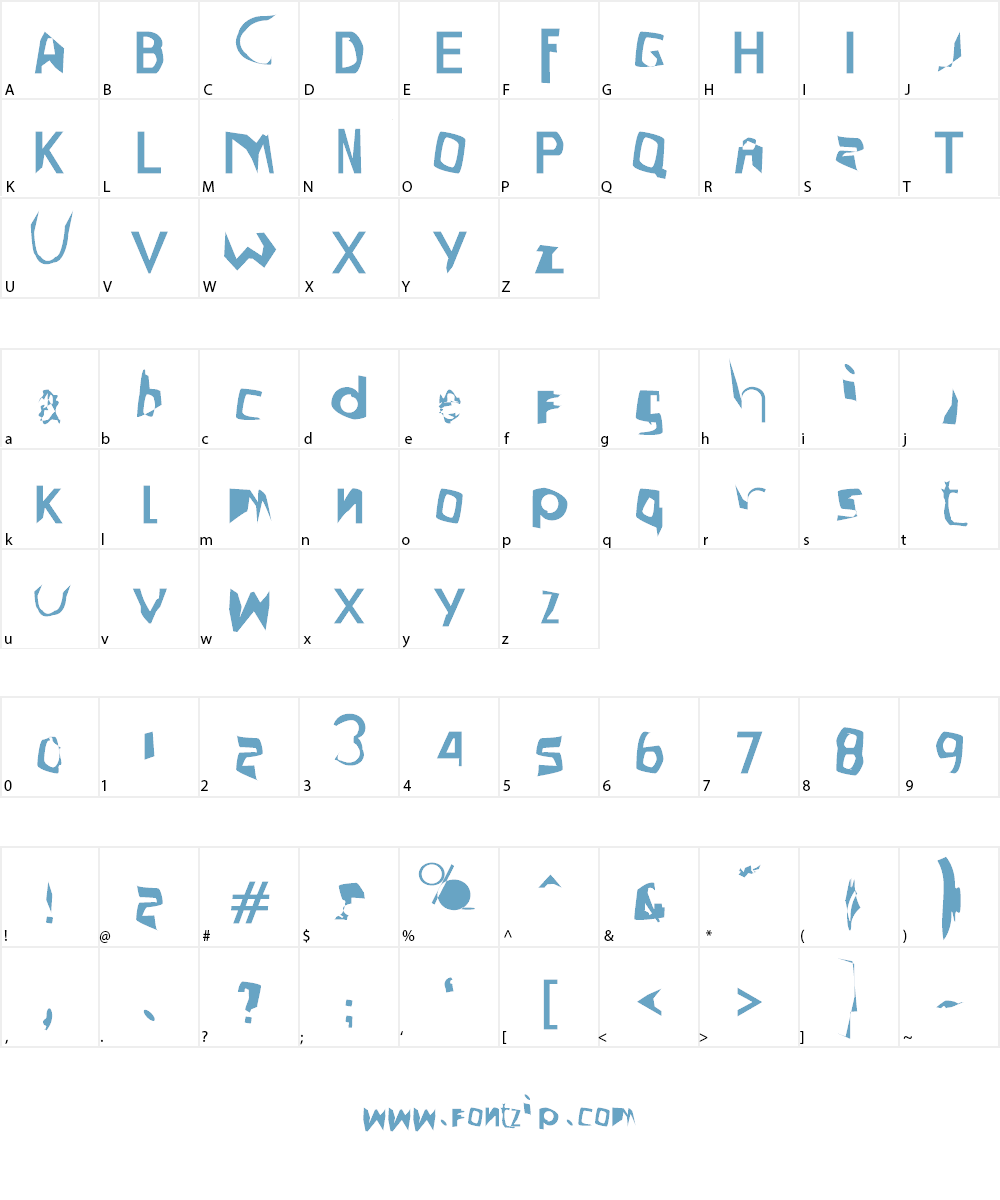
Nightblindside is a distorted font that is based on some distorted fonts and the Gnuolane.
Nyctalopia is the effect of night vision that makes you nightblind.